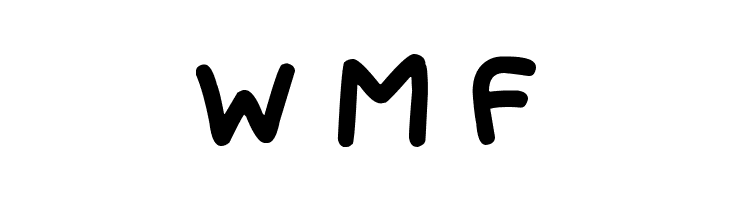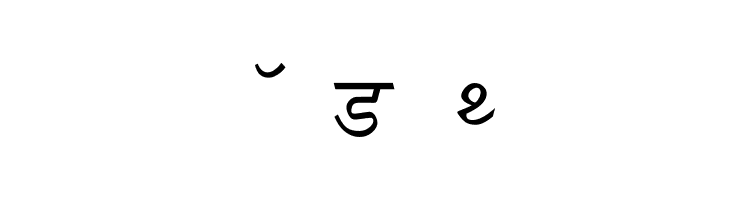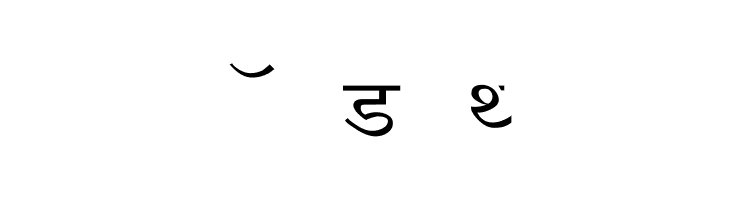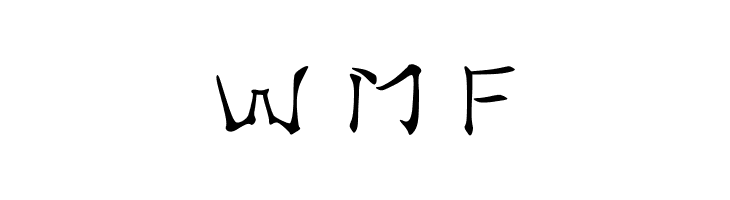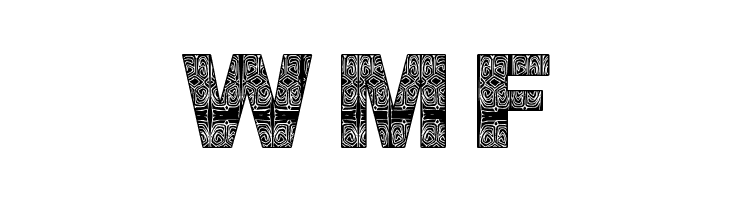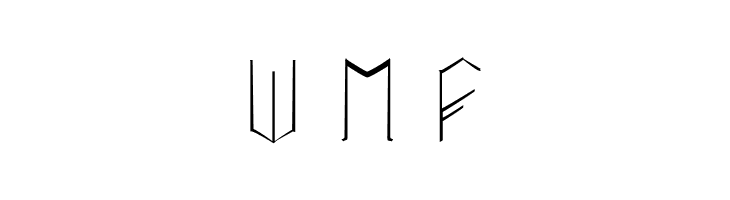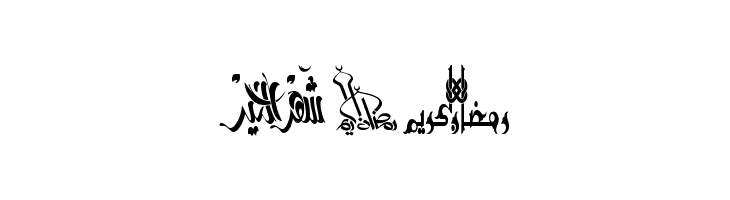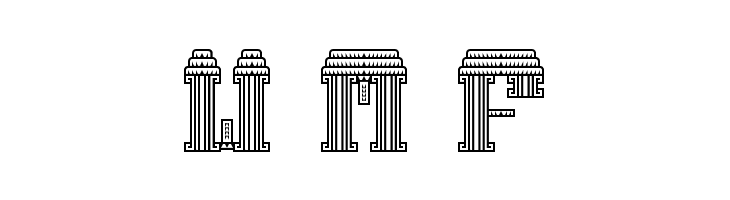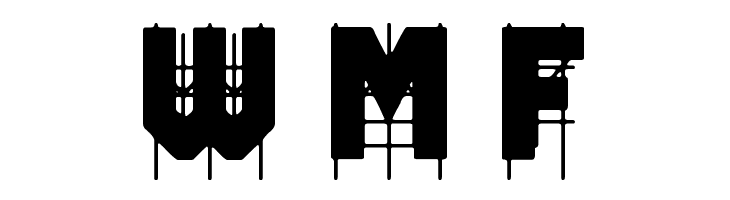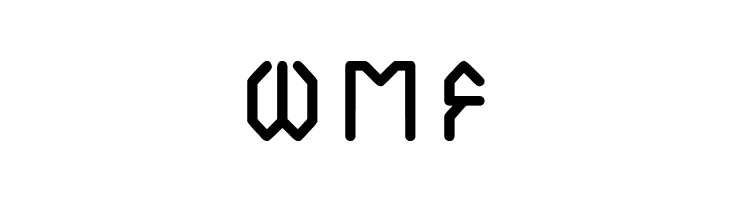
A bold, geometric font with strong, stylized characters and a cultural flair.
A detailed dingbat font featuring cultural and artistic symbols.
A bold, geometric font inspired by African tribal art with a modern twist.
A calligraphy-inspired font with brush-like strokes and artistic flair.
Ornate pictorial font inspired by Javanese wayang shadow puppets.
A decorative typeface featuring intricate patterns and cultural motifs within each character.
A decorative typeface featuring architectural silhouettes for each character.
A modern, handwritten font with fluid, connected strokes and a signature-like style.
A sophisticated script font with fluid, cursive strokes and elegant loops.
A bold, handwritten-style font with a modern, architectural aesthetic.
A geometric and angular font with a modern, architectural style.
A bold, geometric font with cultural influences and a striking design.
A decorative font with ornate, culturally influenced letterforms and intricate details.
An ornate and elegant Arabic script with intricate design elements.
Intricately detailed idol heads with elaborate headdresses in a decorative style.
A decorative font inspired by ancient architectural elements, featuring intricate line patterns.
A bold, architectural font with urban, building-like elements and a strong visual impact.
A bold, geometric font with a technical, architectural style.
A bold, geometric font with an industrial and architectural style.
A modern, angular italic font with a geometric and architectural style.
A bold, handwritten font with an ancient, script-like appearance.
A geometric, angular script with uniform line thickness enclosed in square boxes.